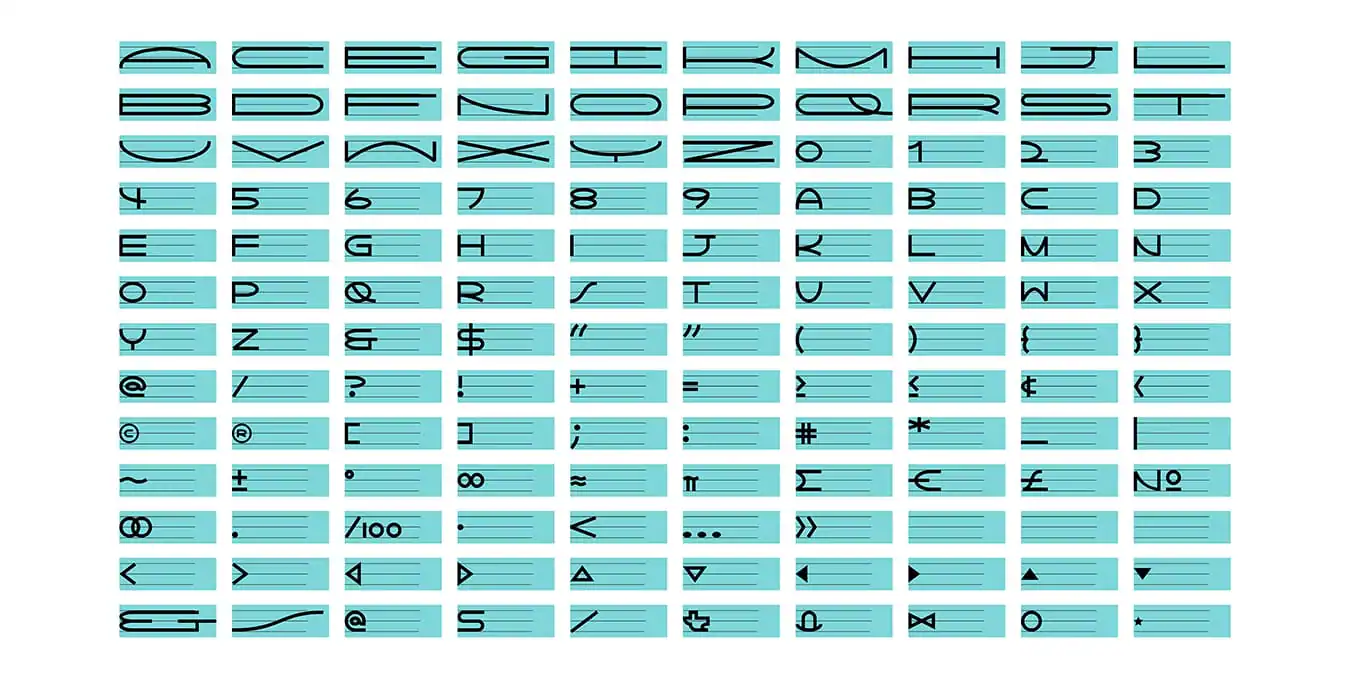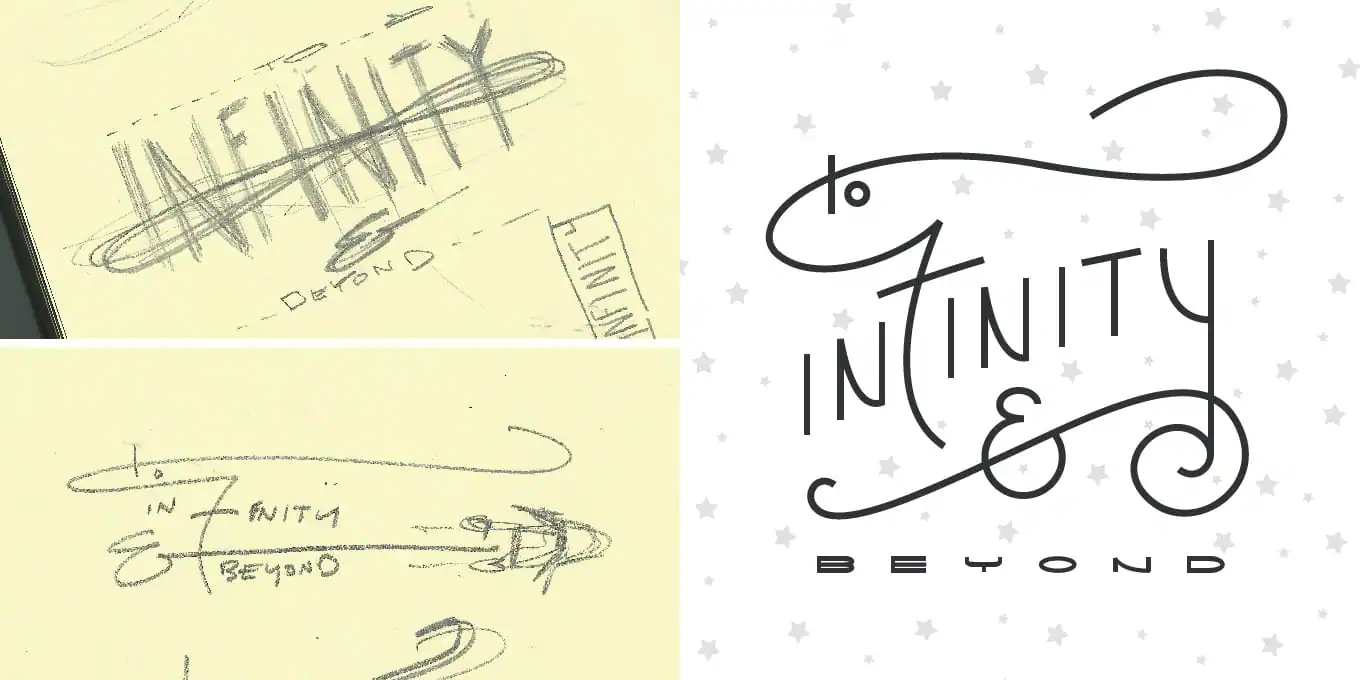
My journey of typeface design began with my love for typography and desire to bring my imagination to life. Both of these factors helped me get through the many challenges of creating an original typeface and ultimately learning how to make that typeface into a working font.
My first taste of designing a typeface came a year and a half ago when I was interning at an Austin branding studio called Sputnik. I had created some custom type for a logo, and although the logo ultimately went in a different direction, I still enjoyed the type. With this in mind, I gave it new life by deciding to spend the rest of my summer creating additional characters, which ultimately became Mocha Script. Since then I have created a few more and have learned few tricks along the way to help me get started.
Where to Start
Creating a typeface out of thin air isn’t easy. Heck, creating any design out of a blank canvas or Illustrator file is overwhelming, but all you need is the root of an idea and the rest will unfold. Mocha Script started because I was looking to create a geometric script for the logo. That was simple enough, and all I needed to get the ball rolling. I set a series of “rules†for myself by setting a basic grid and from there each letter informed me on what the others should look like.
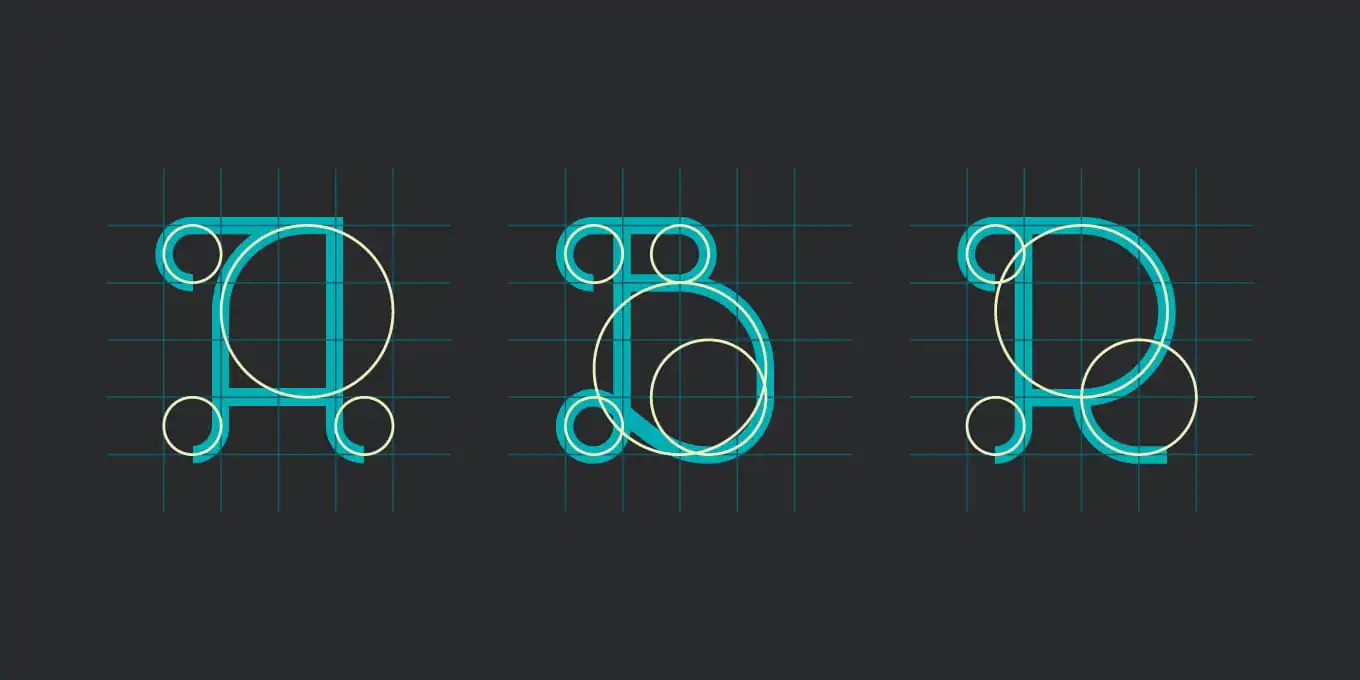
When I designed Storyland, my goal was to create a playful and whimsical feel, something that could have a practical application in developing a children’s book. Storyland was breathed into life by the inspiration of mood and emotion but, inspiration can come from anywhere, anything, or any historical period. Ask yourself, is there a particular purpose or application where your typeface can be utilized? Are you designing for a particular function or space both concrete or imaginary? The point isn’t simply to have the end design in mind, but to develop a starting place. If your inspiration is not materializing, try to think about designing typefaces based on your favorite movie, book, or TV characters. This is how Lightyear came to exist.
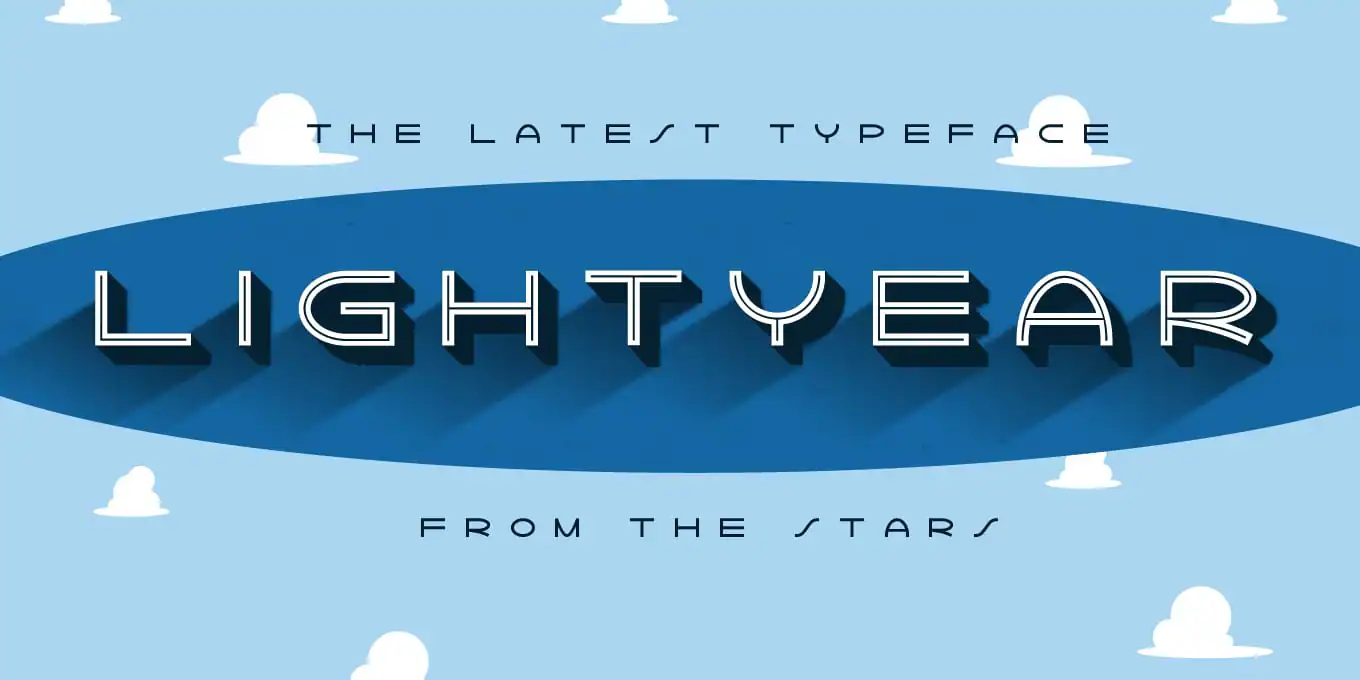
I decided to do a type treatment using Buzz Lightyear’s catch phrase “To Infinity and Beyond”. I tried to reflect the sci-fi and playful space feel that captured my heart as a child. A few months later, I decided to turn that treatment into Lightyear (notice the many references to Toy Story that inspired the typeface).
Tricks and Lessons I’ve Learned
1. Repetition:
Start with one letter and work from there. For instance, you could take an uppercase R and draw from that your uppercase P, as well as possibly the bottom half of the uppercase K. Repeating shapes and forms in letters brings a typeface together. Think of it as creating a series of interchangeable parts to be used as a core for your letters. Adding unique elements can come after you have the basic form set into place
2. Options Can Help Your Idea Evolve: I also like to exhaust all the options before settling on just one character design. For each typeface, I created multiple variations of characters to see which worked and looked the best. Sometimes the first iteration is the best, but evolving an idea to its end helps you find gems and combinations you might not have thought about.
3. Form Words: Once you have a few letters created, start forming words as you are designing the typeface. Forming words helped me as a designer make decisions between iterations and where things should be placed. The letterforms will very rarely be used in isolation, so why design them that way? Yes, the desire should be for each letterform to be beautiful on its own, but if it doesn’t work within the system of the typeface it misses the mark.
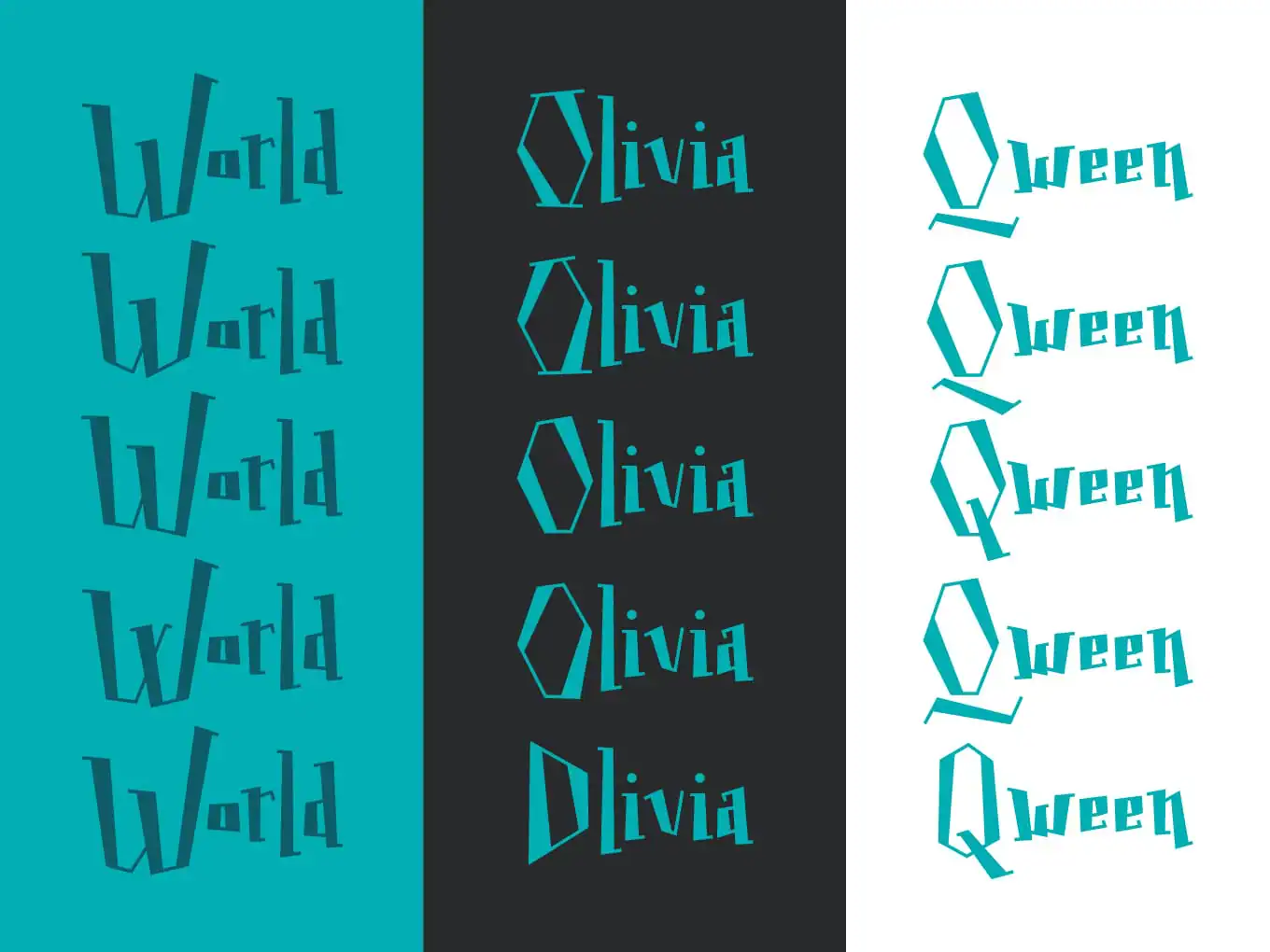
4. Typographical Evolution: Along with the previous tip, let the typeface evolve as you create it. For example, Storyland originally had rounded letterforms and curves but as I started creating other letters and began forming words, I found it looked a bit odd, so I altered it and gave it straight edges even though I had already created most of the lowercase letters.
5. Don’t Be Scared of Change: It may be a little extra work, time, and effort but it is always worth it. You want to create something you are proud of, so cutting corners will only result in the “I wish I had…†or even more work later on if you decide to change it. Trust your design eye and senses.
Taking the Next Step: from Typeface to .OTF
So here I had this vectored typeface, now what? Designing a well crafted typeface is no small or easy feat but either is making the jump from pretty letters to a font. With this said, 6 months ago I decided after many years of wishing, wanting, making excuses, and putting it off to do something about it.
Not knowing where to start, I posted an open question to my Twitter followers asking for type programs that didn’t take a degree to understand and thankfully Gerren, from Creative Market, responded and I found a very user-friendly program to use called Type Light.
After getting the program, I did what anyone would do, I read the instructions that came with the program. No really, I did, and I recommend you do it as well. It takes a lot of the guess work out of what initials mean, how they effect the font as well as save you time in the long run. With each font, I challenge myself in new ways. Mocha doesn’t have much kerning since it is monospaced, so Thunder Pants involved learning how to kern the letters in the program and make the typeface look consistent as it is typed out. With Storyland, I shot for the moon and created a layered typeface without really knowing how to accomplish or tackle this. When you want to make that jump to creating a font, here are few things that will help you.